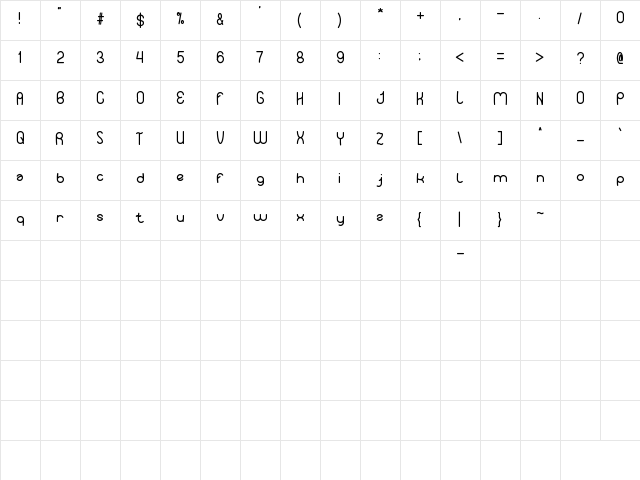
Your Smile Regular
Design Context for Your Smile Typeface
Your Smile is a composed and adaptable typeface that performs quietly and consistently across a wide range of design contexts.